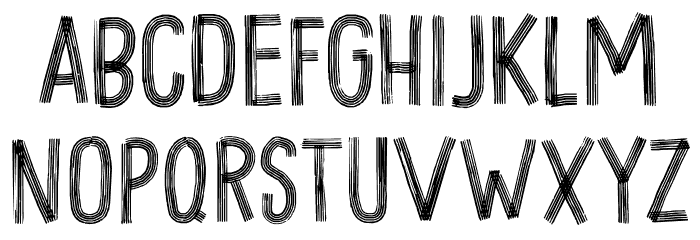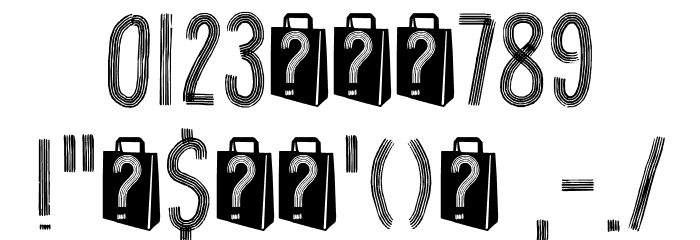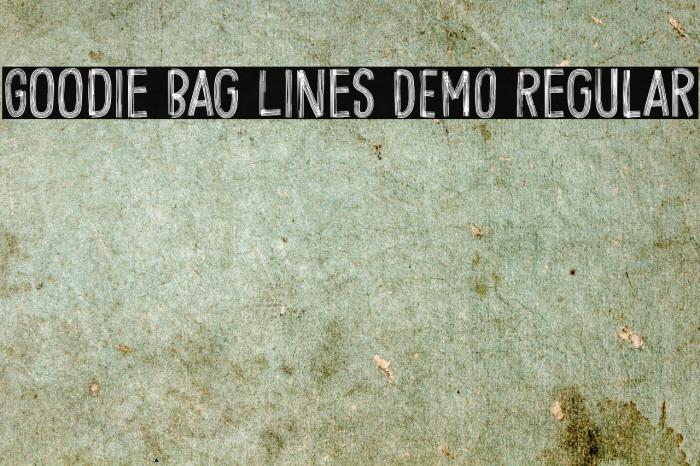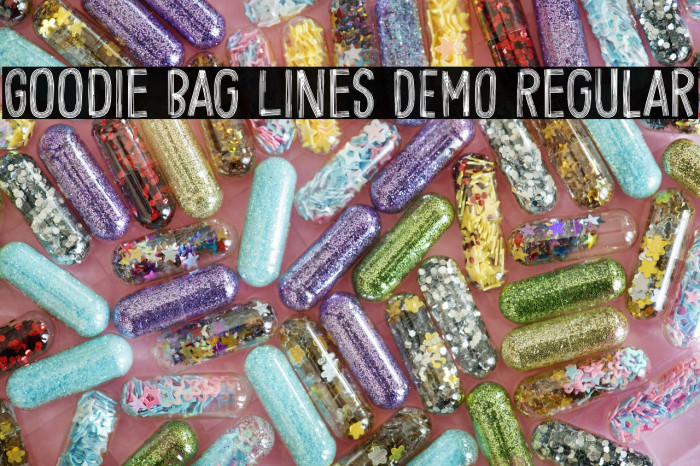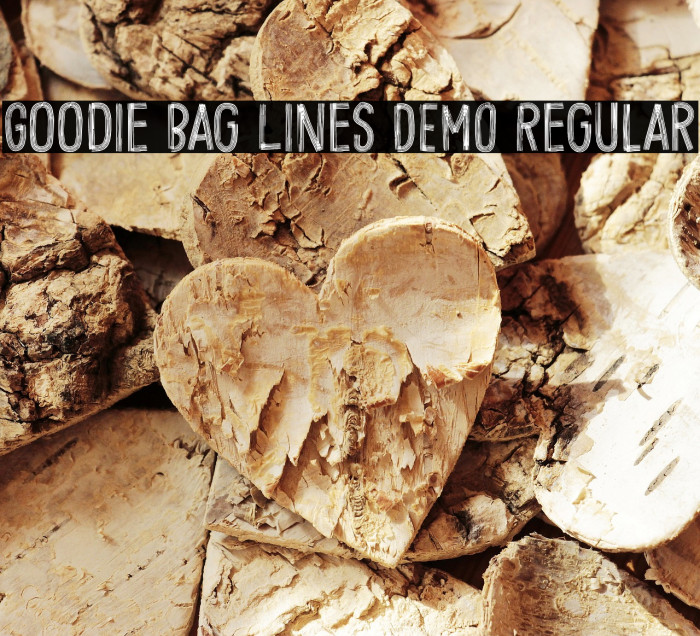
Goodie Bag Lines DEMO Regular Font
This font features a unique and playful design with a hand-drawn aesthetic. Each character is composed of multiple parallel lines, giving it a sketch-like appearance. The uppercase and lowercase letters maintain a consistent style, with a slightly irregular and whimsical feel. The numerals and special characters follow the same lined pattern, ensuring a cohesive look across all glyphs. The font's distinct style makes it stand out, perfect for creative projects that require a touch of personality and artistic flair.
A playful, hand-drawn font with a sketch-like, lined appearance.
- Proposed Projects: Ideal for children's book covers, playful branding, creative posters, and artistic invitations.